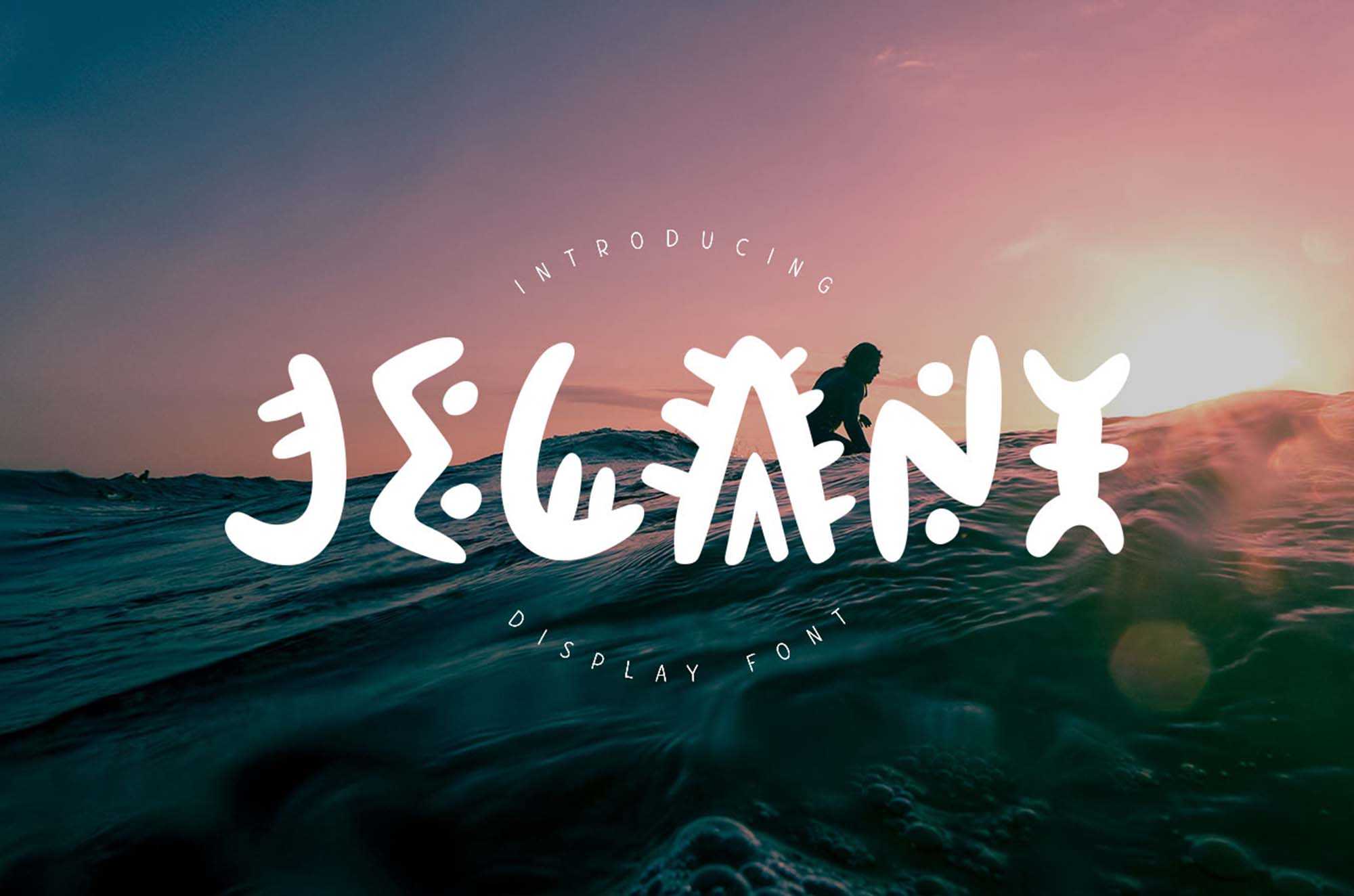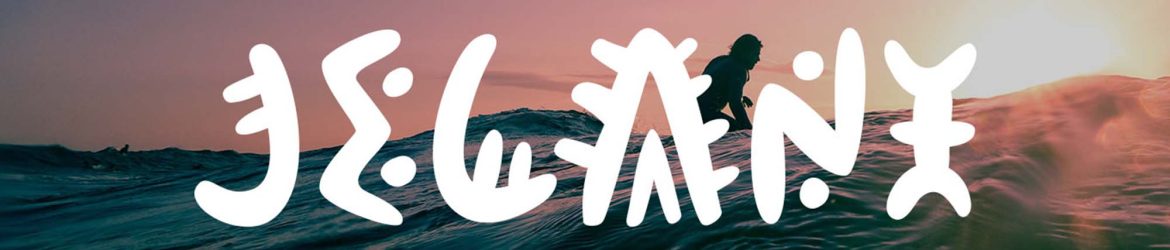
Jelani Display Font – Download Grátis
Man, from the beginning of time, the imprint of man has been everywhere. Through art, cultures have left their mark on walls, sculptures, drawings, and paintings, and most importantly, through writing. Writing became a means to record the important events of civilizations, and each culture had its unique symbols, or as we call them, letters. Today’s freebie is a display font called “Jelani,” inspired by African folklore. Jelani Display Font is a beautiful and versatile typeface that brings the rich cultural heritage of Africa to life, perfect for adding a touch of authenticity and uniqueness to your projects. Whether it’s for your brand’s logo, a book cover, or a digital poster, Jelani offers a perfect canvas to express the stories and stories of the continent.